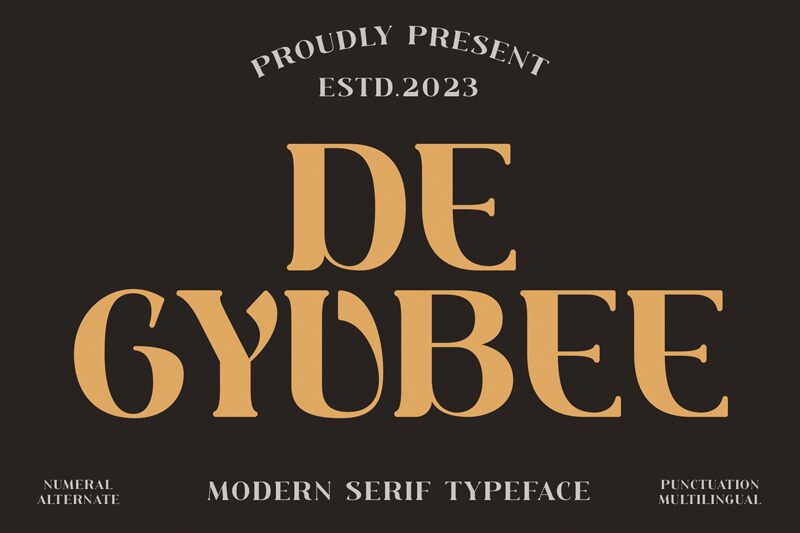
De Gyubee font family by Muflieart includes 2 different decorative font styles leaning towards the modern serif style. Enjoy the classy handwritten-like letters with uniquely shaped letter stems that are distinctive, sophisticated, and stylish. The unique character design is what sets this free font family apart with additional little ornamental elements. These decorative details give your submitted work a contemporary confident finish unlike any other font.
Speaking of their use, you can use the font family for fashion magazines, branding projects, blogs, and social media platforms. All types of printed and digital projects can benefit from those fonts.